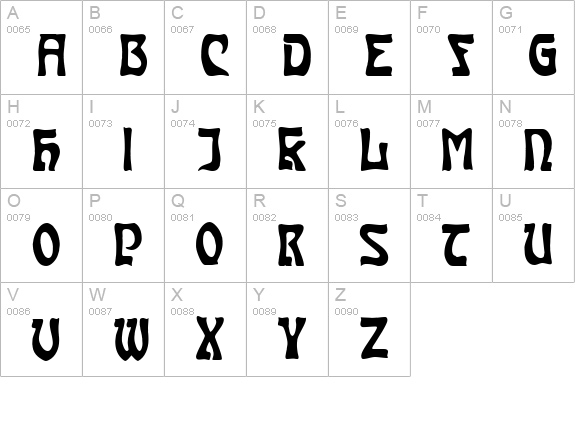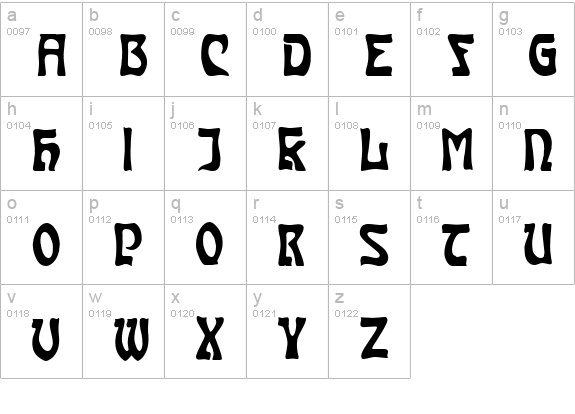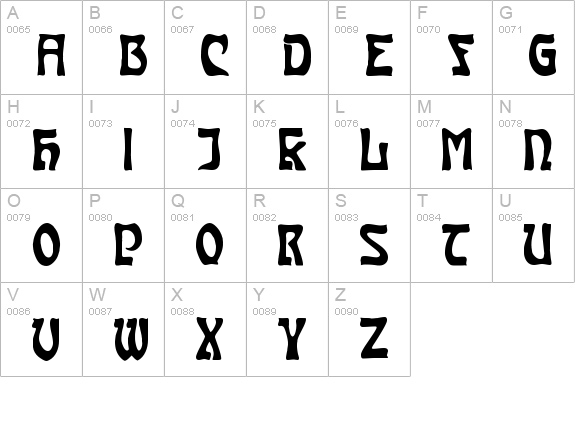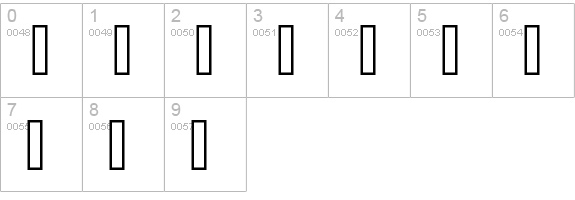
Carmen CapsInside Font Details
Introducing Carmen CapsInside font, a charming and elegant typeface that exudes sophistication and style. This elegant font features intricate details and delicate curves that give it a unique and timeless appeal. Perfect for adding a touch of class to any design project, Carmen CapsInside font is versatile and can be used for a variety of purposes, from invitations to branding to editorial design. The beauty of Carmen CapsInside font lies in its versatility and ability to elevate any design with its refined aesthetic. Its uppercase letters are adorned with intricate details that add a touch of elegance and sophistication to any text. Whether you're designing a wedding invitation, a luxury brand logo, or a magazine spread, Carmen CapsInside font is sure to make a statement. Best of all, Carmen CapsInside font is available for free download at FontsMarket.com, making it easily accessible for designers and creatives looking to add a touch of elegance to their projects. Download Carmen CapsInside font today and elevate your designs with its timeless charm and sophistication.